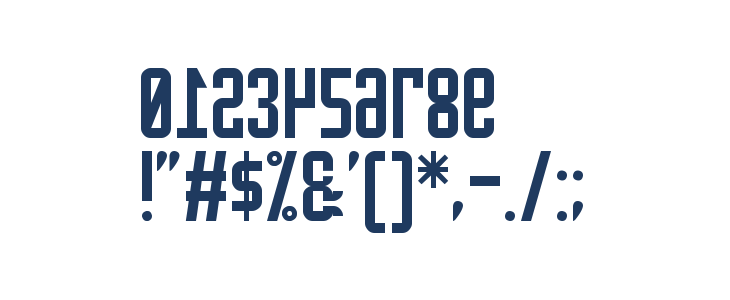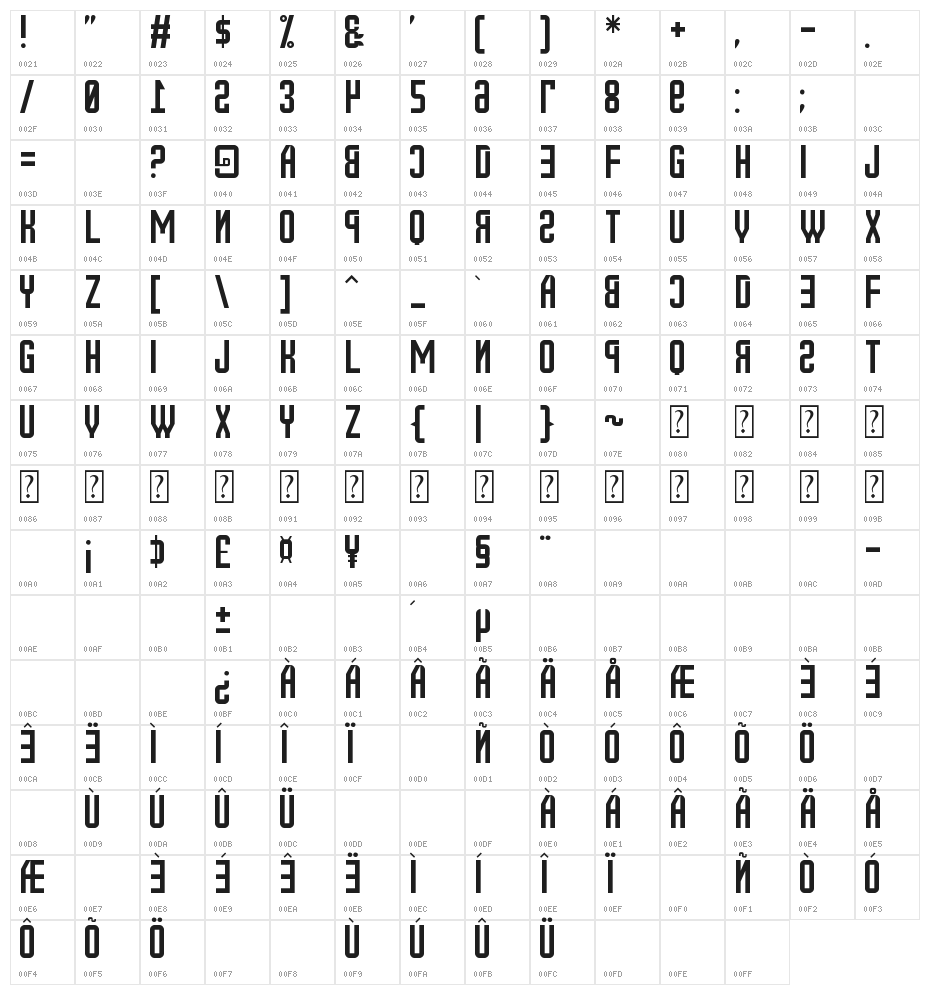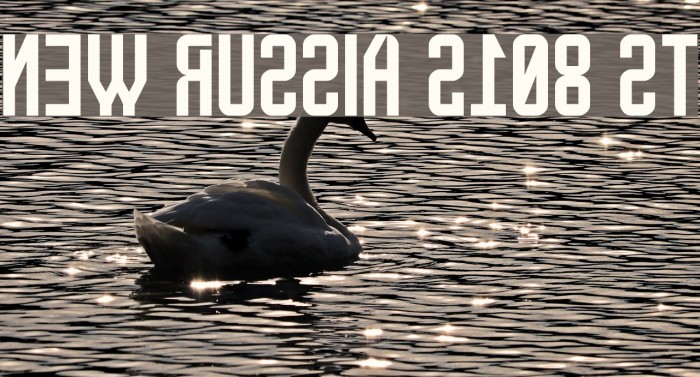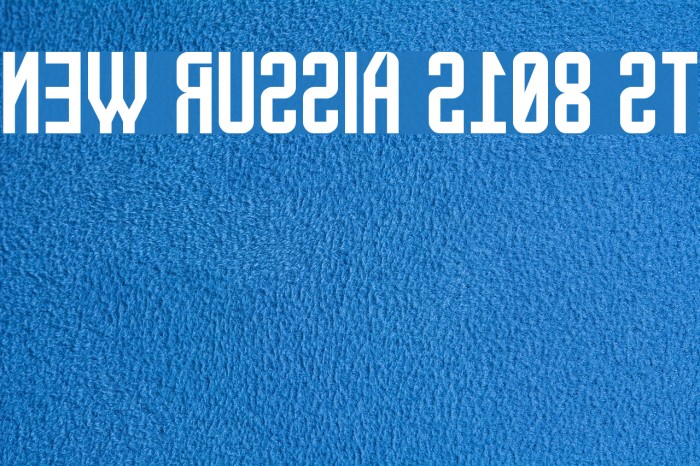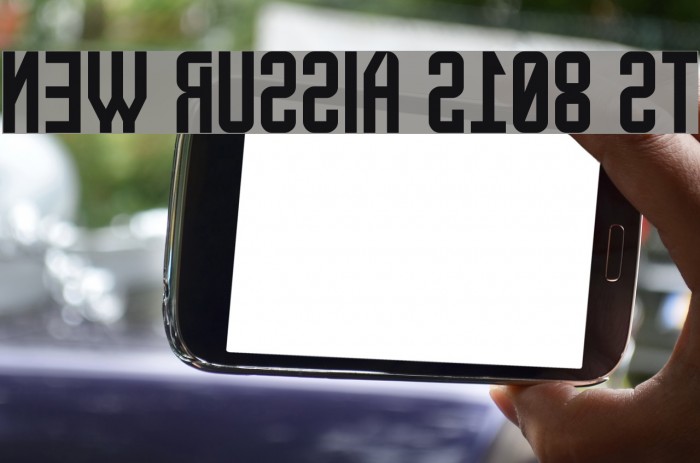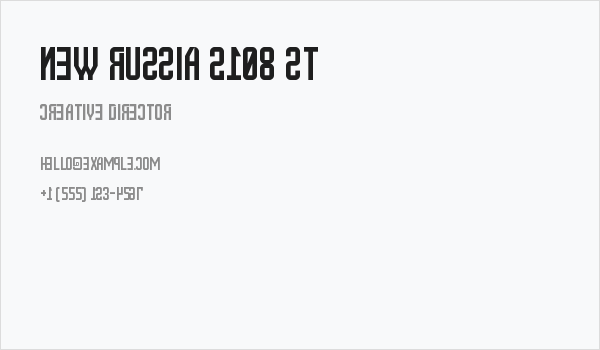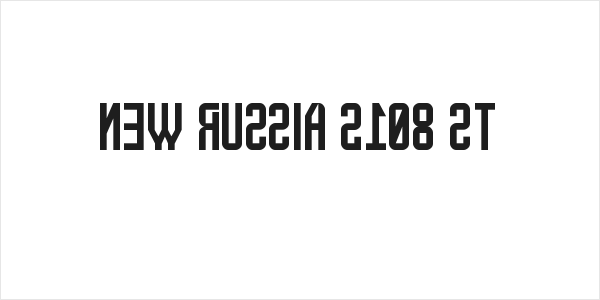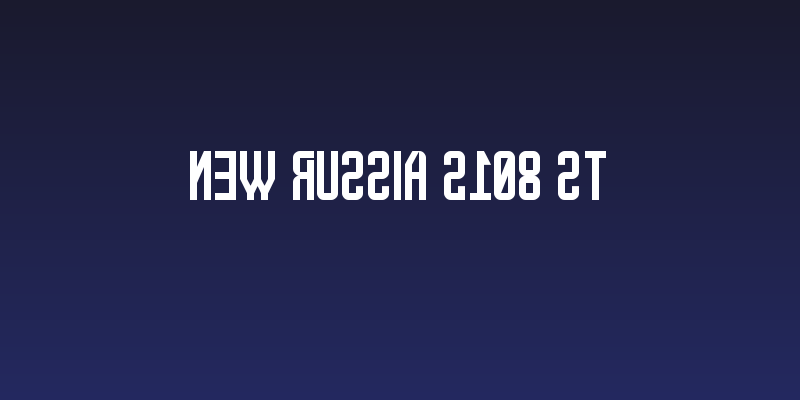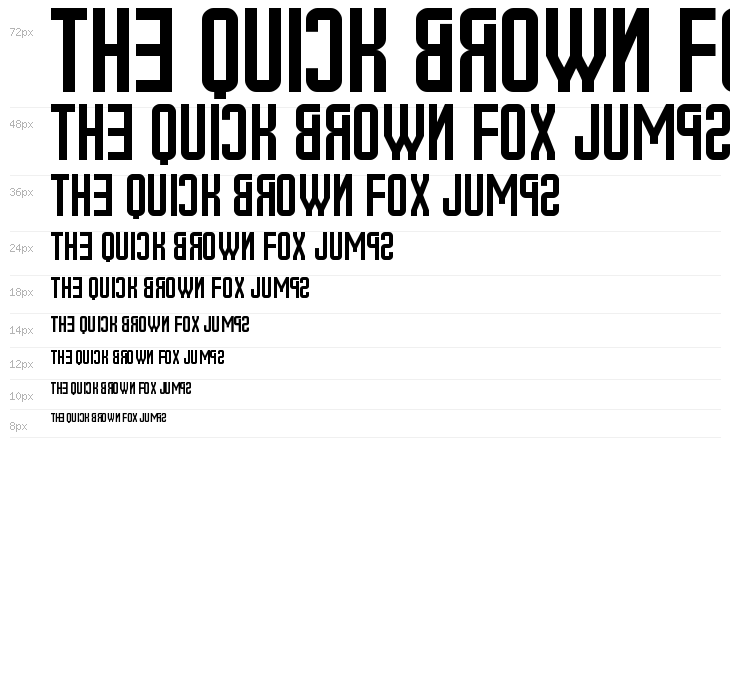
New Russia 2108 St Font
New Russia 2108 St Description
This font features a bold, geometric design with a modern and futuristic aesthetic. The characters are constructed with straight lines and sharp angles, giving them a distinct, industrial feel. The uppercase letters are uniform in height, while the lowercase letters maintain a consistent style, enhancing readability. The numbers and special characters follow the same design principles, ensuring a cohesive look across all glyphs. This font's strong visual presence makes it ideal for impactful designs.